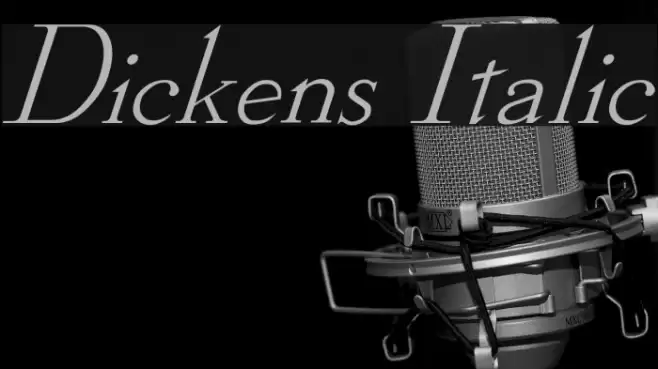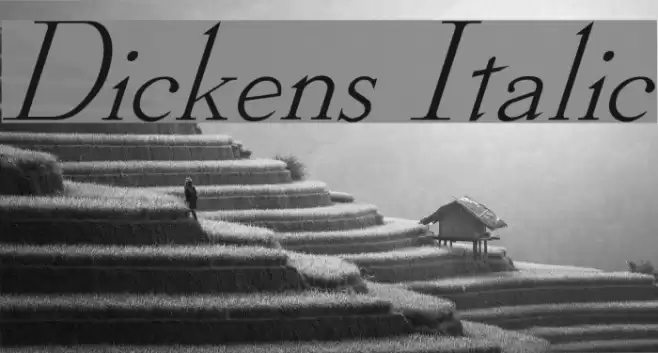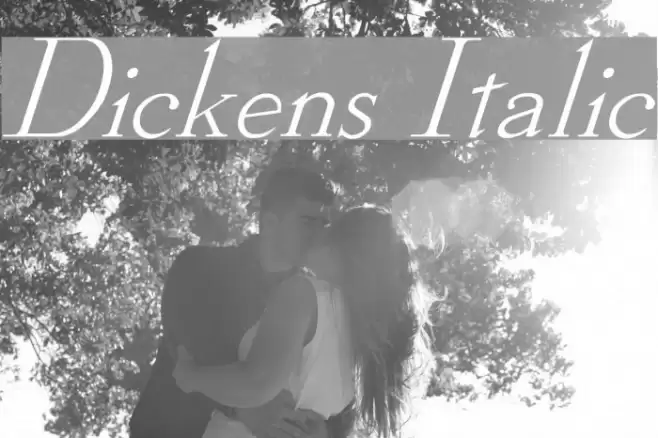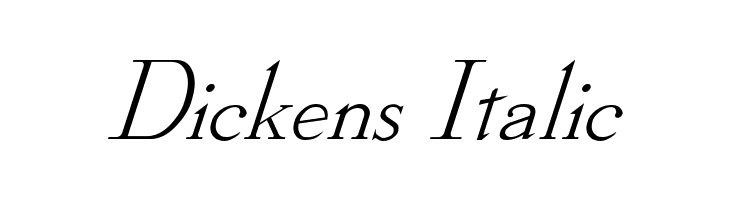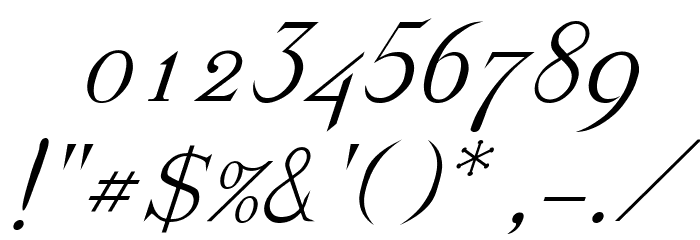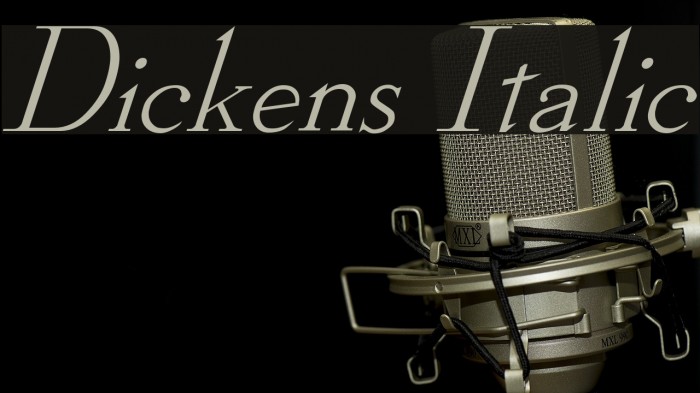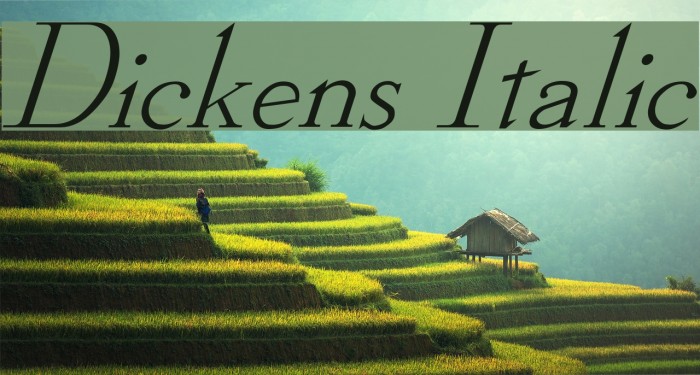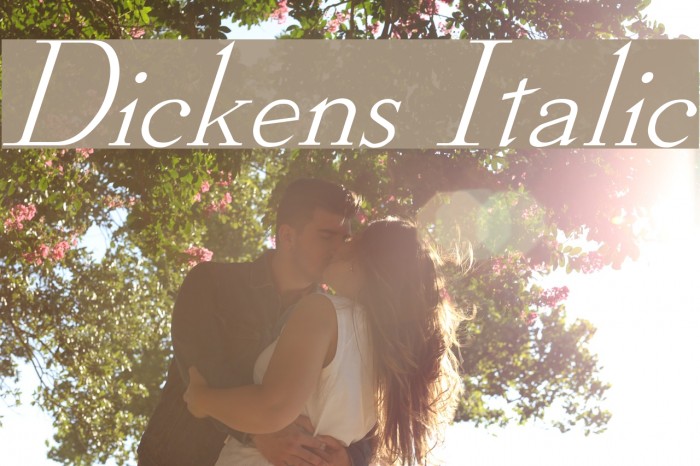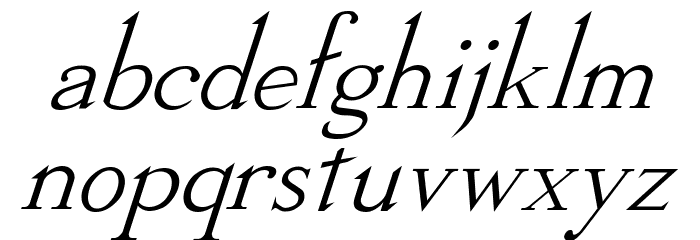
Dickens Italic Font
Dickens Italic Description
This elegant serif font features a classic italic style with graceful curves and a refined appearance. The uppercase letters are tall and slightly condensed, giving a sophisticated and formal look. The lowercase letters maintain a consistent slant, enhancing the italicized effect. The numerals are well-proportioned, complementing the overall aesthetic. Special characters are designed with the same attention to detail, ensuring a cohesive appearance across all glyphs. The font's high contrast between thick and thin strokes adds to its elegance, making it suitable for formal and decorative uses.
An elegant serif font with a classic italic style and high contrast strokes from Serif fonts.
- Proposed Projects: Ideal for wedding invitations, formal event programs, elegant branding, and editorial design.
- Overall Style: Classic
- Use Case: Headlines, Logos, Invitations